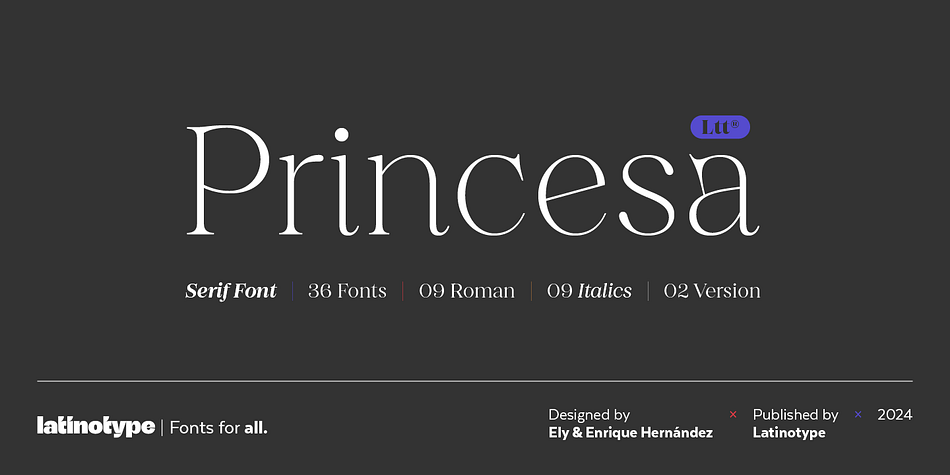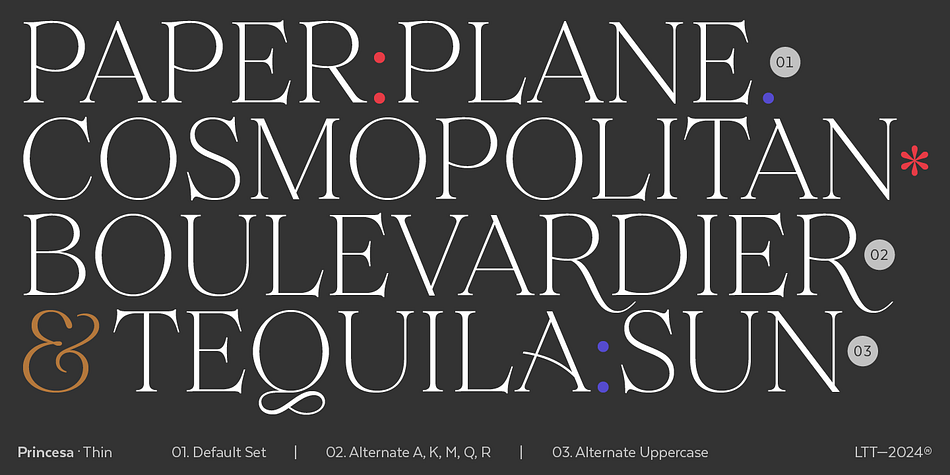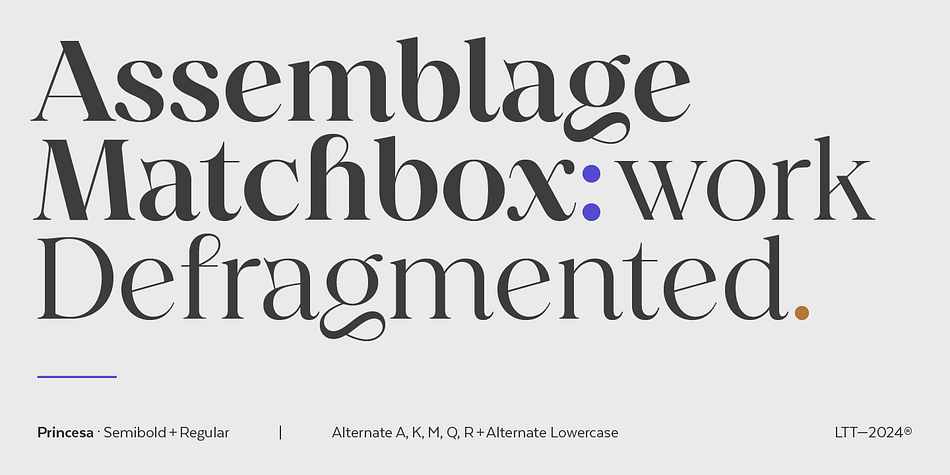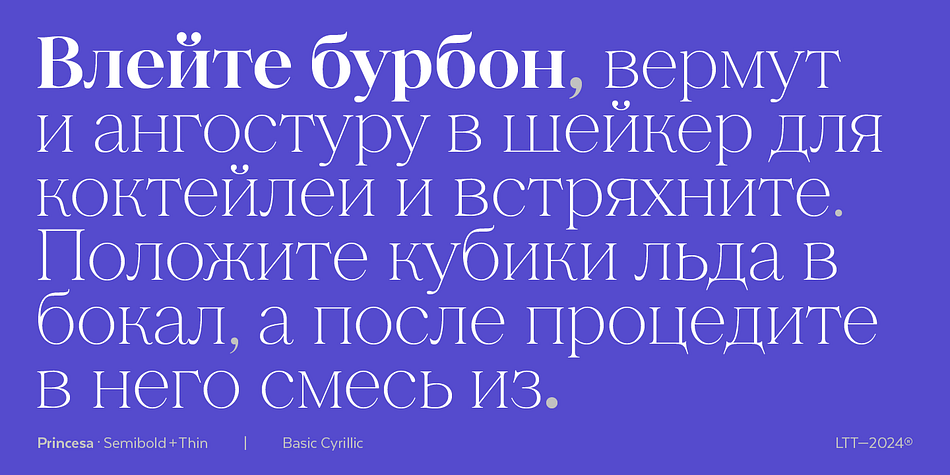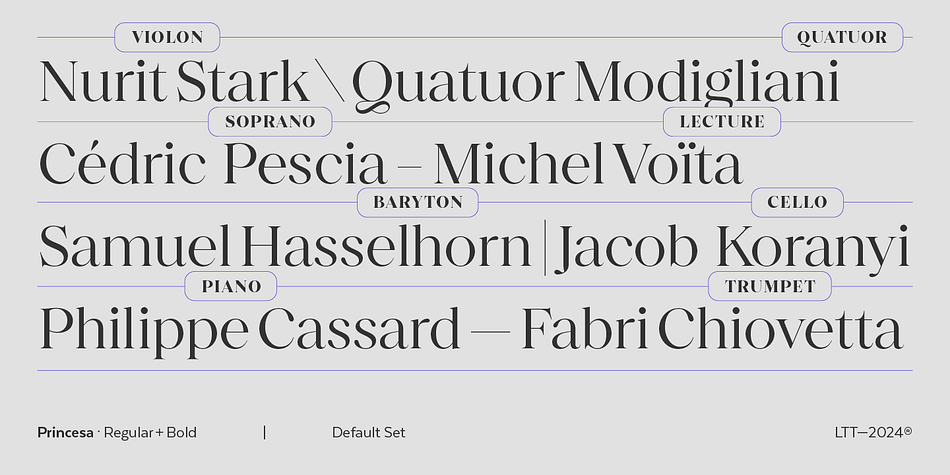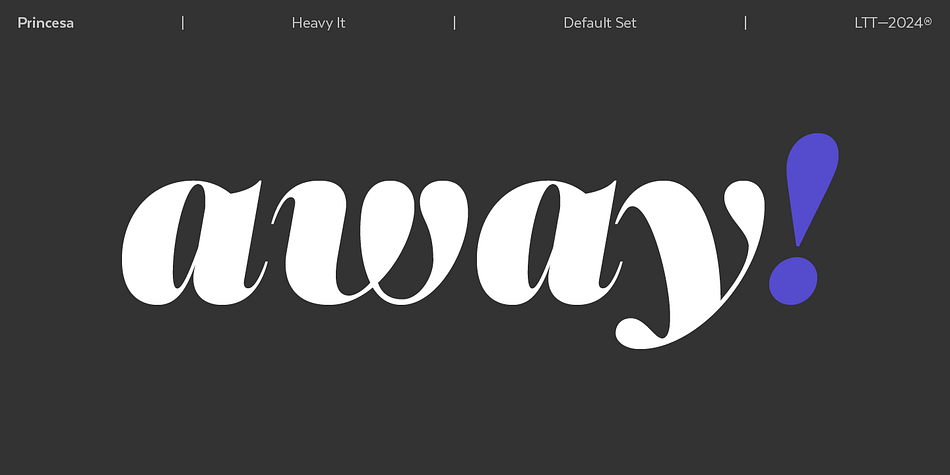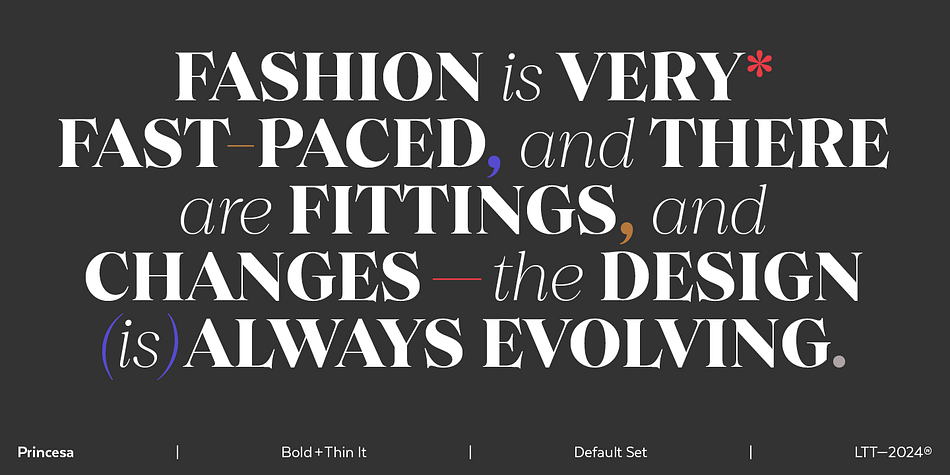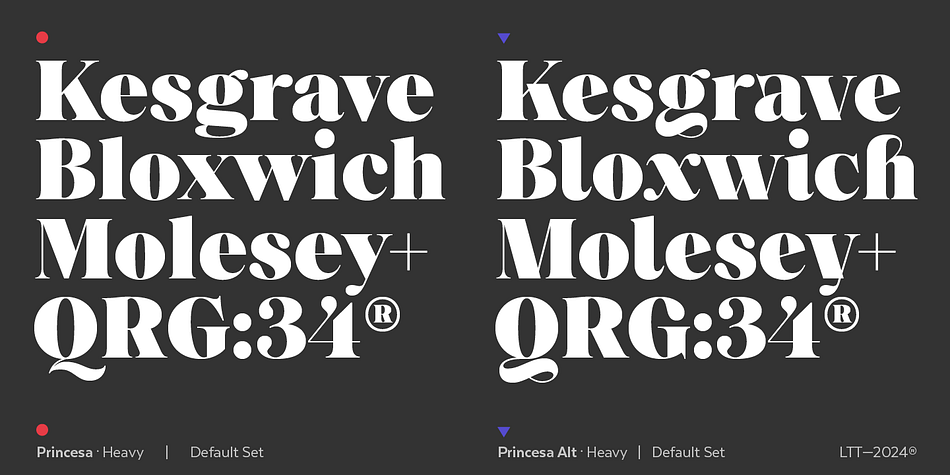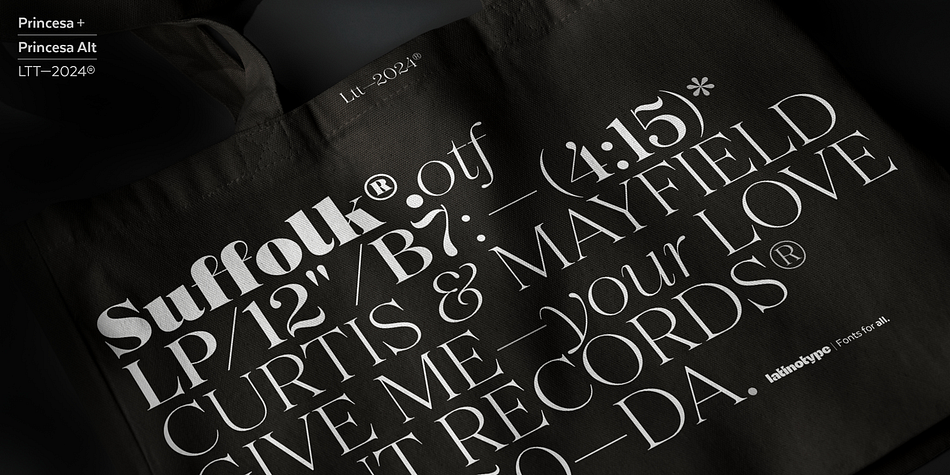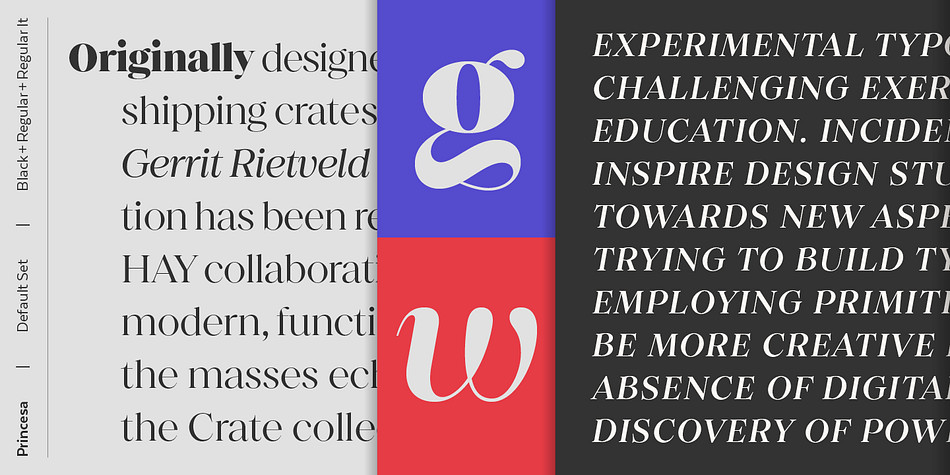
Princesa
Designed by Eli Hernández and Enrique Hernandez, Princesa is a serif font family. This typeface has thirty-six styles and was published by Latinotype.
Princesa represents a fascinating journey through time, taking inspiration from classic Roman fonts and masterfully addressing contemporary typographic challenges.
The collaboration between Enrique and Eli Hernández, father and daughter, manifests itself in two years of dedication to give shape to this typeface that stands out for its contrasts and captivating shapes, giving it a subtle and distinctive personality. It should be noted that the design process had the contribution of the Latinotype team.
Princesa offers a total of 36 weights, which include a “normal” version and its respective italics, as well as an “alt” version also accompanied by italics. Its extensive repertoire covers the Cyrillic alphabet and 4 stylistic sets, making it possible to replace almost 40 characters. This versatility makes Princesa the perfect choice for a wide variety of applications such as editorial design, headlines, branding and advertising, masterfully fusing style, elegance and timeless classic beauty with an updated perspective.